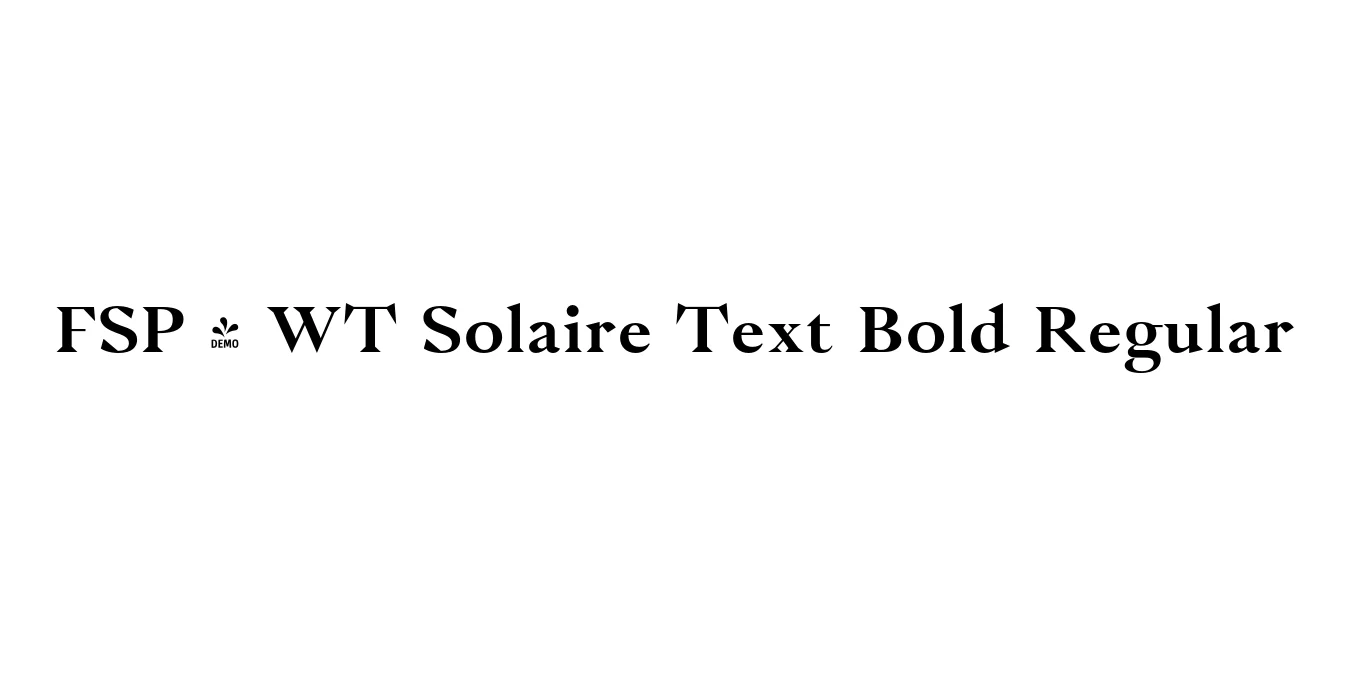
FSP - WT Solaire Text Bold Regular
Designed by Wiredly Type
WT Solaire Text Bold Regular is a sophisticated serif typeface designed by Wiredly Type, blending the timeless elegance of classic typography with a sharp, contemporary edge. Developed specifically for high-end editorial use, the "Text" variant focuses on enhancing readability without sacrificing the distinctive personality and high-contrast flair that the Solaire family is known for.
The font features pronounced flared serifs and carefully balanced stroke weights, making it an excellent choice for luxury branding and book design. Its structural refinement ensures that it performs exceptionally well in both printed magazines and digital interfaces, providing a sense of authority and premium quality to any layout it inhabits.
FSP - WT Solaire Text Bold Regular Best Uses
Perfect for magazine body text, journals, and long-form storytelling.
Ideal for fashion labels, premium packaging, and high-end corporate identities.
Provides a sophisticated look for headers and structured blog content.